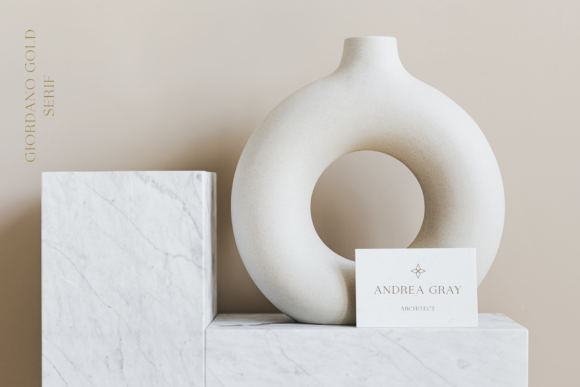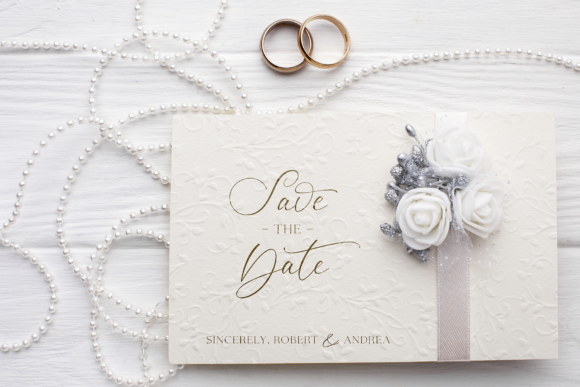
Giordano Gold Font
Giordano Gold is a beautiful, thin lettered and elegant duo font (script and serif). Incredibly versatile, this font fits a wide pool of designs, elevating them to the highest levels. Giordano Gold is PUA encoded which means you can access all of the glyphs and swashes with ease!